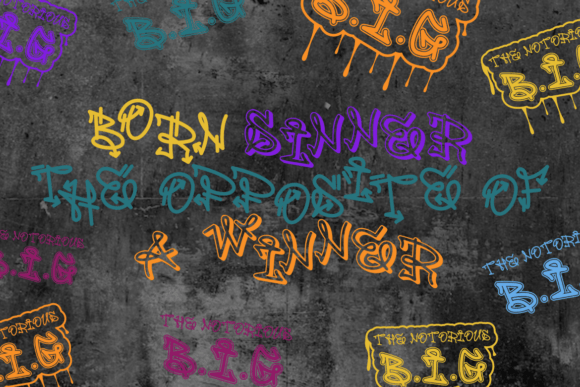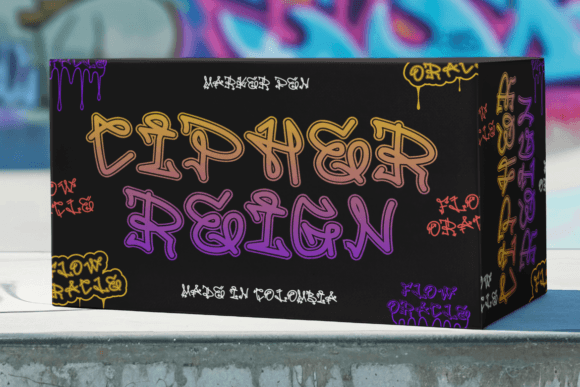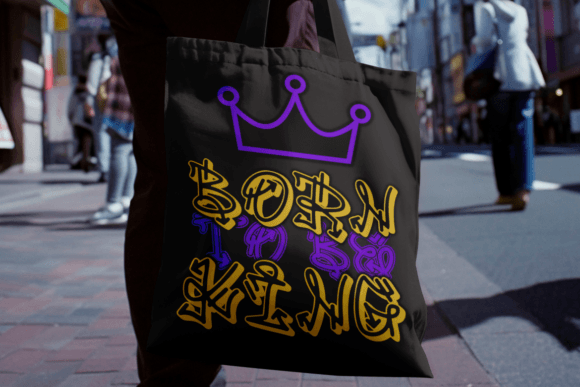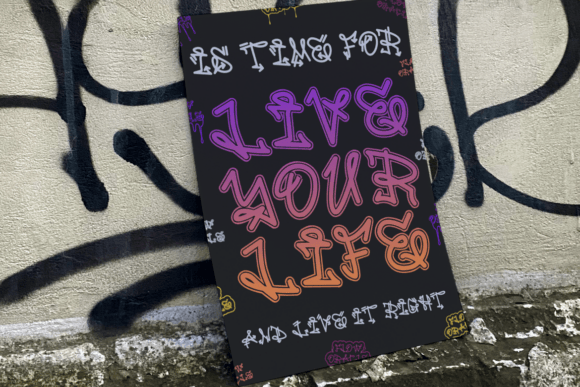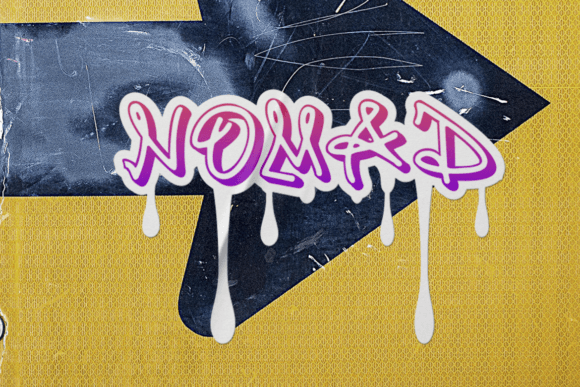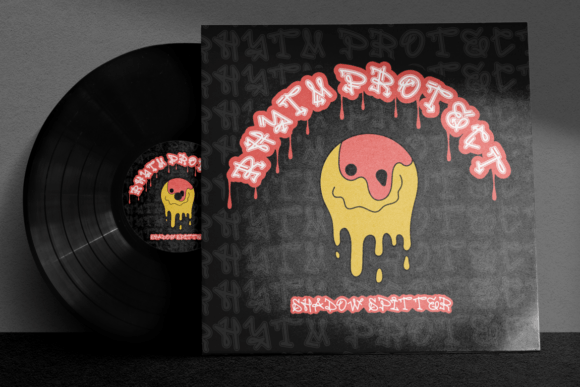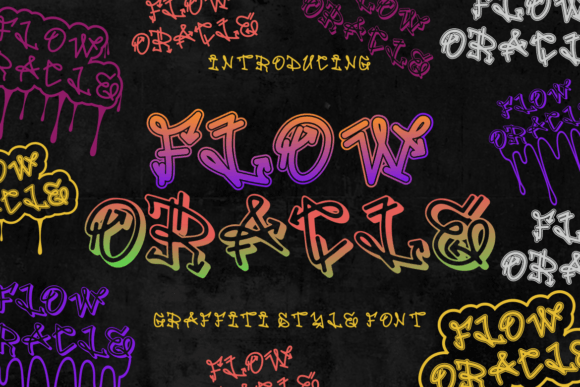
Introducing Flow Oracle – Graffiti Style Font
Are you tired of using the same old fonts in your designs? Do you want to add a bold and edgy touch to your projects? Look no further than Flow Oracle, a vibrant and dynamic graffiti style font that’s perfect for modern creative projects. Inspired by the bold artistry of street graffiti, Flow Oracle is a unique typeface that captures the raw essence of urban street art.
What is Flow Oracle?
Flow Oracle is a graffiti style font that features a mix of dripping paint effects, irregular shapes, and playful curves. The font’s multi-colored gradient designs, ranging from neon purples and oranges to electric greens, add a lively and contemporary edge that’s perfect for designs that need a youthful touch. The varied letter styles in this font mimic authentic graffiti tags, offering versatility while staying true to the street culture aesthetic.
The Inspiration Behind Flow Oracle
The inspiration behind Flow Oracle comes from the vibrant and dynamic world of street graffiti. Graffiti art has been a staple of urban culture for decades, providing a platform for artists to express themselves and showcase their creativity. From bold tags to intricate murals, graffiti art is all about self-expression and pushing boundaries. Flow Oracle captures this spirit of creativity and rebellion, making it the perfect font for designers who want to add an edgy touch to their projects.
Key Features of Flow Oracle
So what makes Flow Oracle so special? Here are some of the key features that set this font apart:
- Dripping paint effects: The font features dripping paint effects that give it a realistic graffiti look.
- Multi-colored gradient designs: The font’s multi-colored gradient designs add a lively and contemporary edge.
- Varied letter styles: The font features varied letter styles that mimic authentic graffiti tags.
- Urban theme: The font’s background features a gritty concrete wall, adding texture and depth.
Uses for Flow Oracle
So what can you use Flow Oracle for? The possibilities are endless! Here are some ideas to get you started:
- Logos: Use Flow Oracle to create a bold and edgy logo for your brand.
- Posters: Create eye-catching posters that showcase your creativity and style.
- Stickers: Design stickers that are sure to grab attention.
- Album covers: Use Flow Oracle to create a unique and eye-catching album cover.
Why Choose Flow Oracle?
So why choose Flow Oracle over other fonts? Here are just a few reasons:
- Unique and creative: Flow Oracle is a one-of-a-kind font that’s sure to make your designs stand out.
- Edgy and youthful: The font’s graffiti style gives it an edgy and youthful vibe that’s perfect for modern designs.
- Versatile: The font’s varied letter styles and multi-colored gradient designs make it versatile and easy to use.
In conclusion, Flow Oracle is a vibrant and dynamic graffiti style font that’s perfect for modern creative projects. With its unique and creative design, edgy and youthful vibe, and versatile features, Flow Oracle is sure to elevate your designs to the next level. Whether you’re a designer, crafter, or artist, Flow Oracle is a must-have font that’s sure to inspire your creativity and take your designs to new heights.